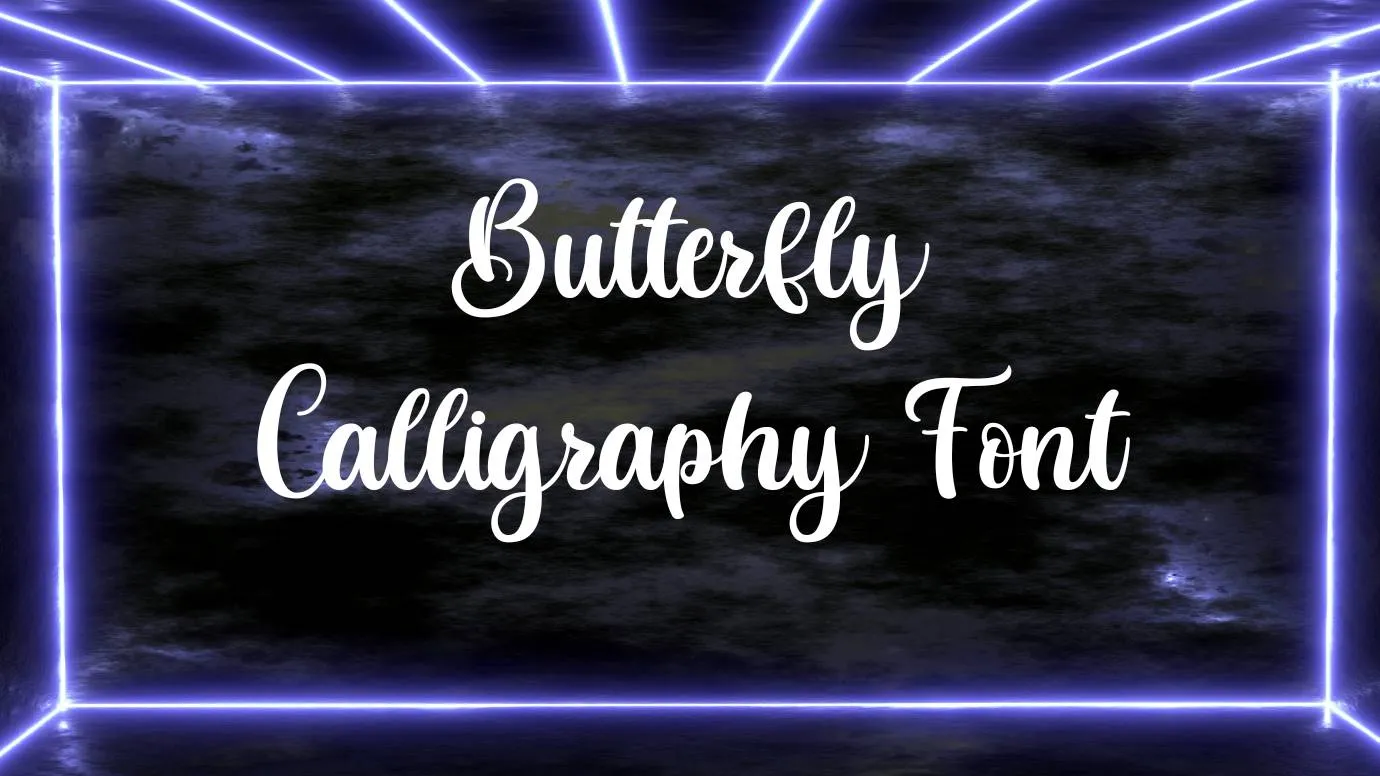
Butterfly Calligraphy Font Family comes in the calligraphy category. StringLabs is the designer and publisher of this font. This font family comes in bold and italic swashes that are so attractive and eye-catching.
If you are a designer and want to create an impressive design then this font is the perfect option for you. Its outstanding look is coherent and you can easily make it pair with another calligraphy font like sunshine font.
Butterfly Calligraphy Font